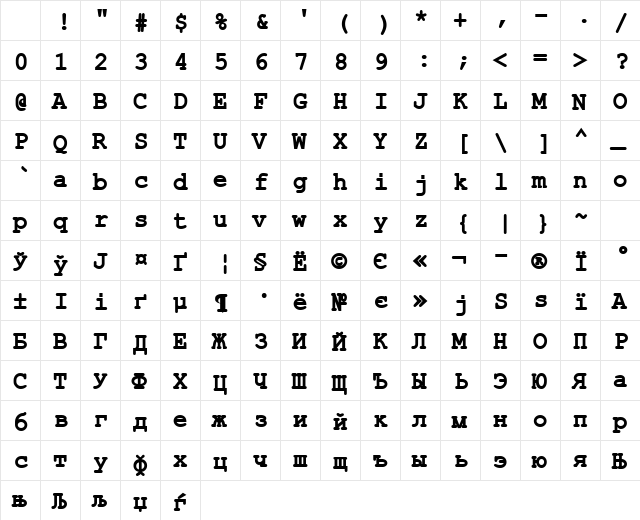
Complete ER Kurier 1251 Bold glyph index. Displaying only characters natively supported by ER Kurier 1251 Bold font.
ER Kurier 1251 is a composed and adaptable typeface that performs quietly and consistently across a wide range of design contexts. Its bold stroke weight gives it real presence on the page.